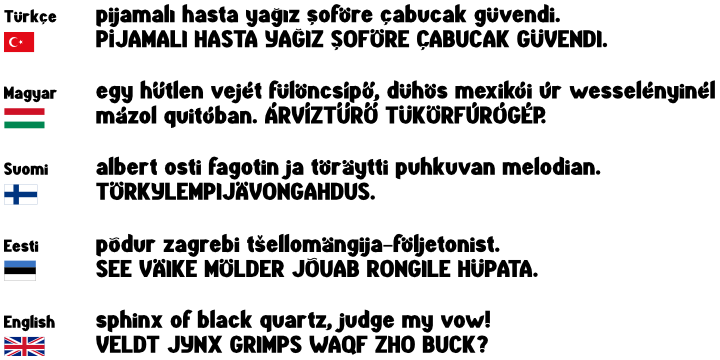
• Anadolu™
Anadolu was inspired by the distinct style of sign lettering in rural Turkey, and refined based on sign lettering in Hungary. Shown here are samples in Turkish and Hungarian, as well as Finnish and Estonian, two other languages in the Finno-Ugric language group with Hungarian.
The slight curve at the tops of ascenders and bottoms of descenders is inspired by the linguistic process of “vowel harmony” in Turkish and Hungarian.
Anadolu is the Turkish name for Anatolia, the peninsula where Turkey lies. The name recalls another sans-serif typeface named for its country of origin. More…
The tittle on the i is reimagined as a diacritic, and the dotless ı is reimagined as the basic, prototypical i.
Too many typefaces treat diacritics as afterthoughts. Since diacritics are integral to the languages that inspired Anadolu, they were designed as core components of the typeface.